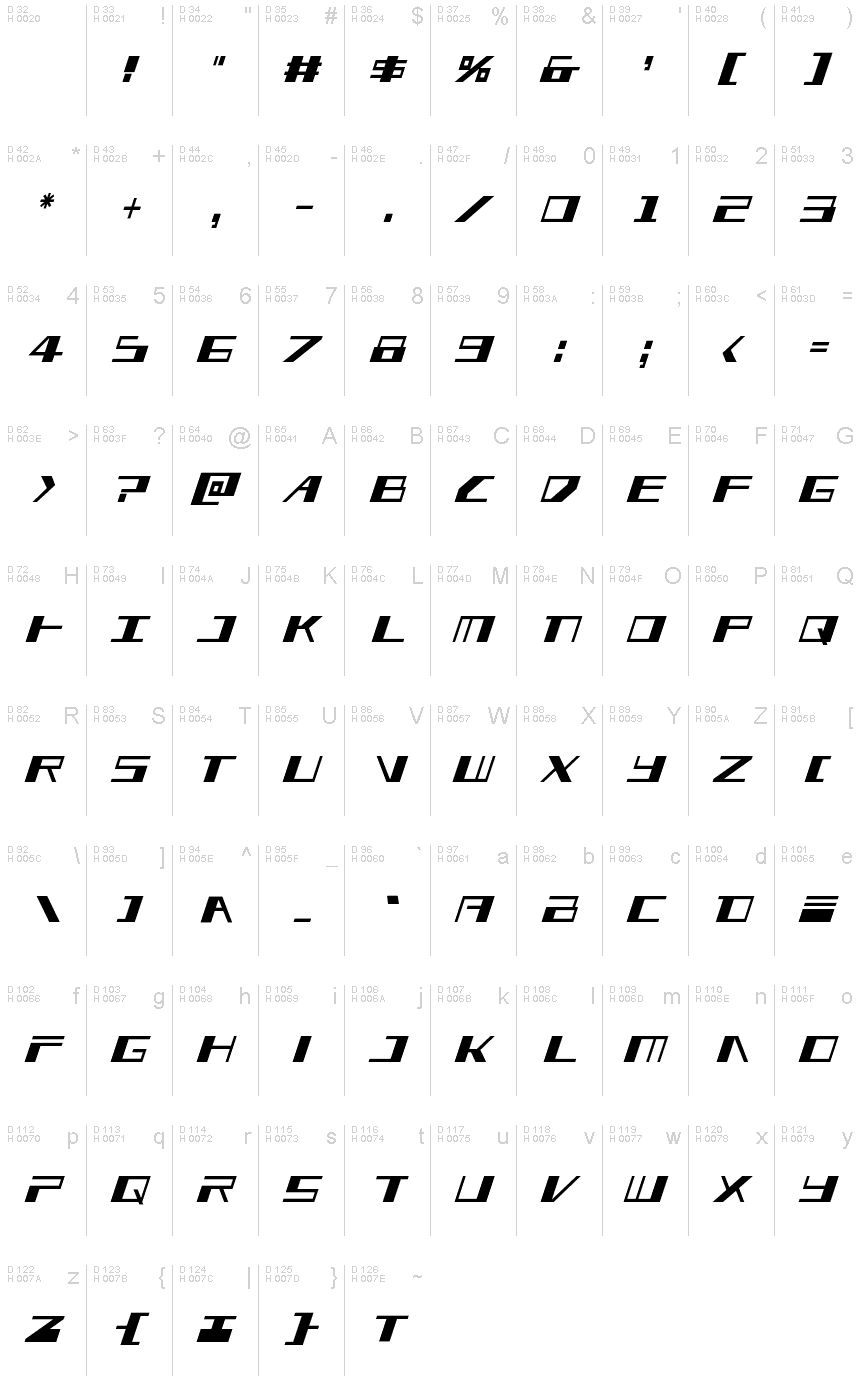
3AGLE Condensed Italic
3AGLE Condensed Italic, from the visionary minds at Iconian Fonts, soars above the ordinary with its bold, extra-expanded form factor and a distinctly futuristic style.
Tailored for display purposes, this member of the 3AGLE family asserts itself with confidence and flair. Its sleek italicized characters are perfect for eye-catching headlines, dynamic branding campaigns, or any creative endeavor that demands an impactful typographic presence.
Embrace the cutting-edge aesthetic of 3AGLE Condensed Italic to elevate your designs into new realms of sophistication and innovation.